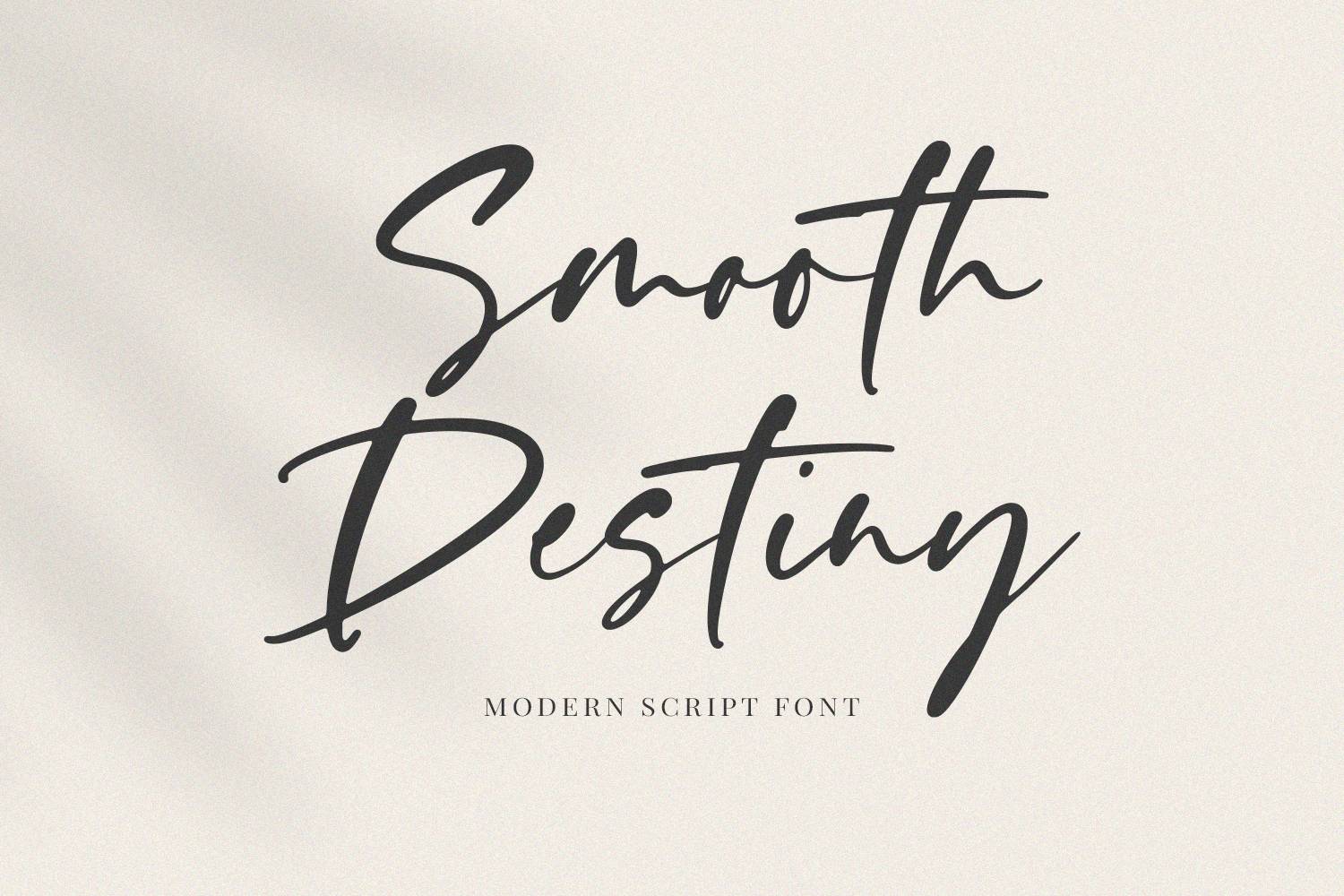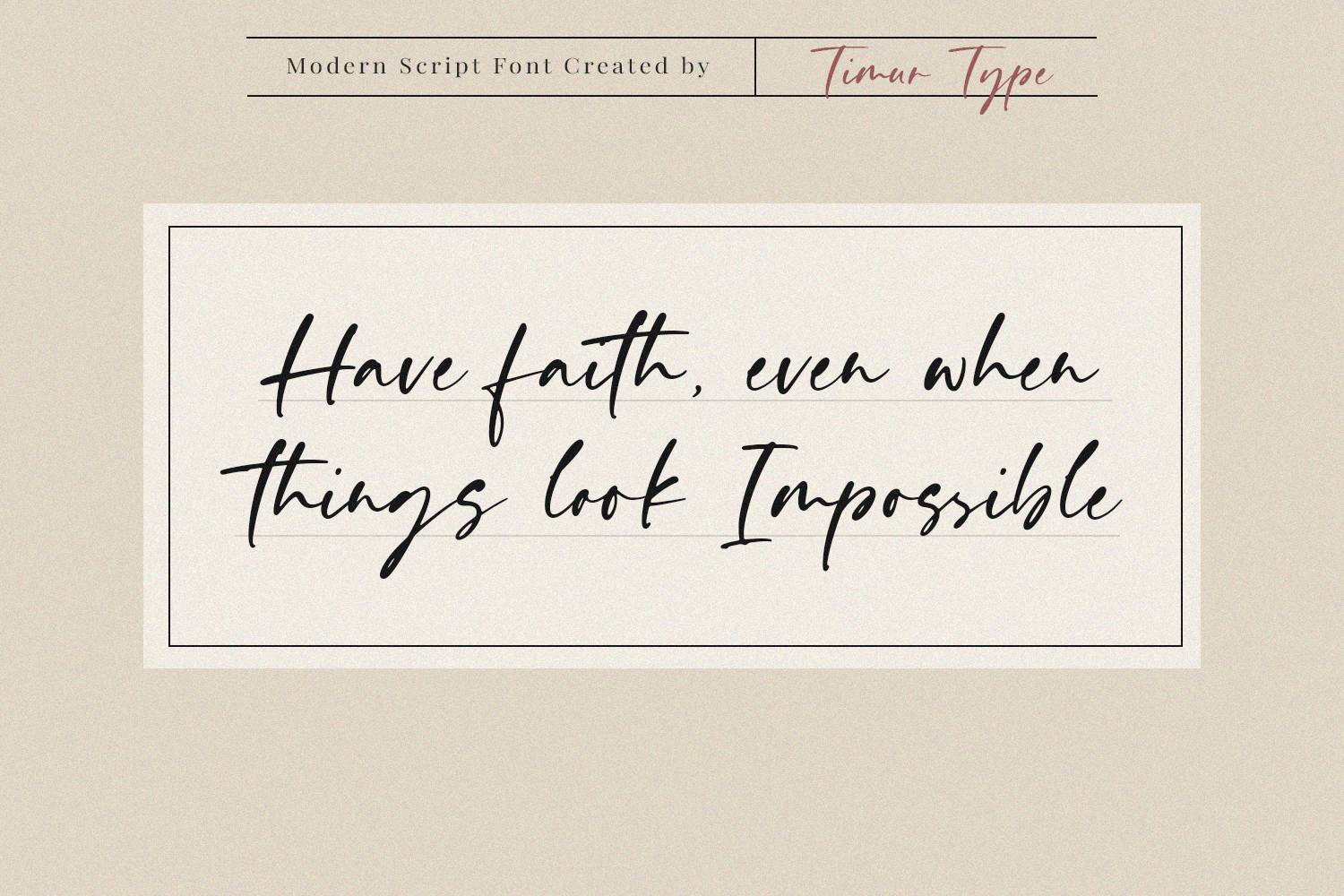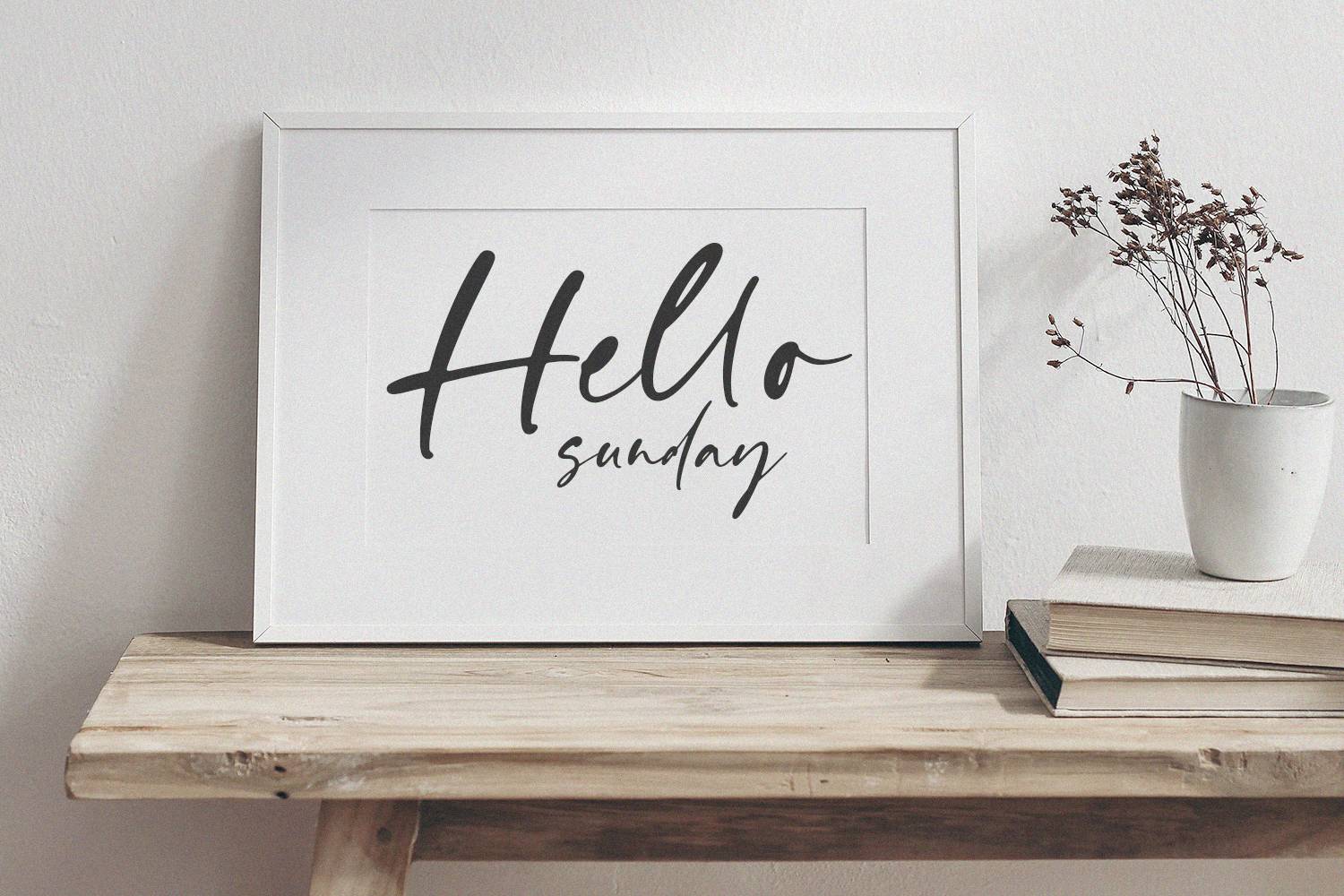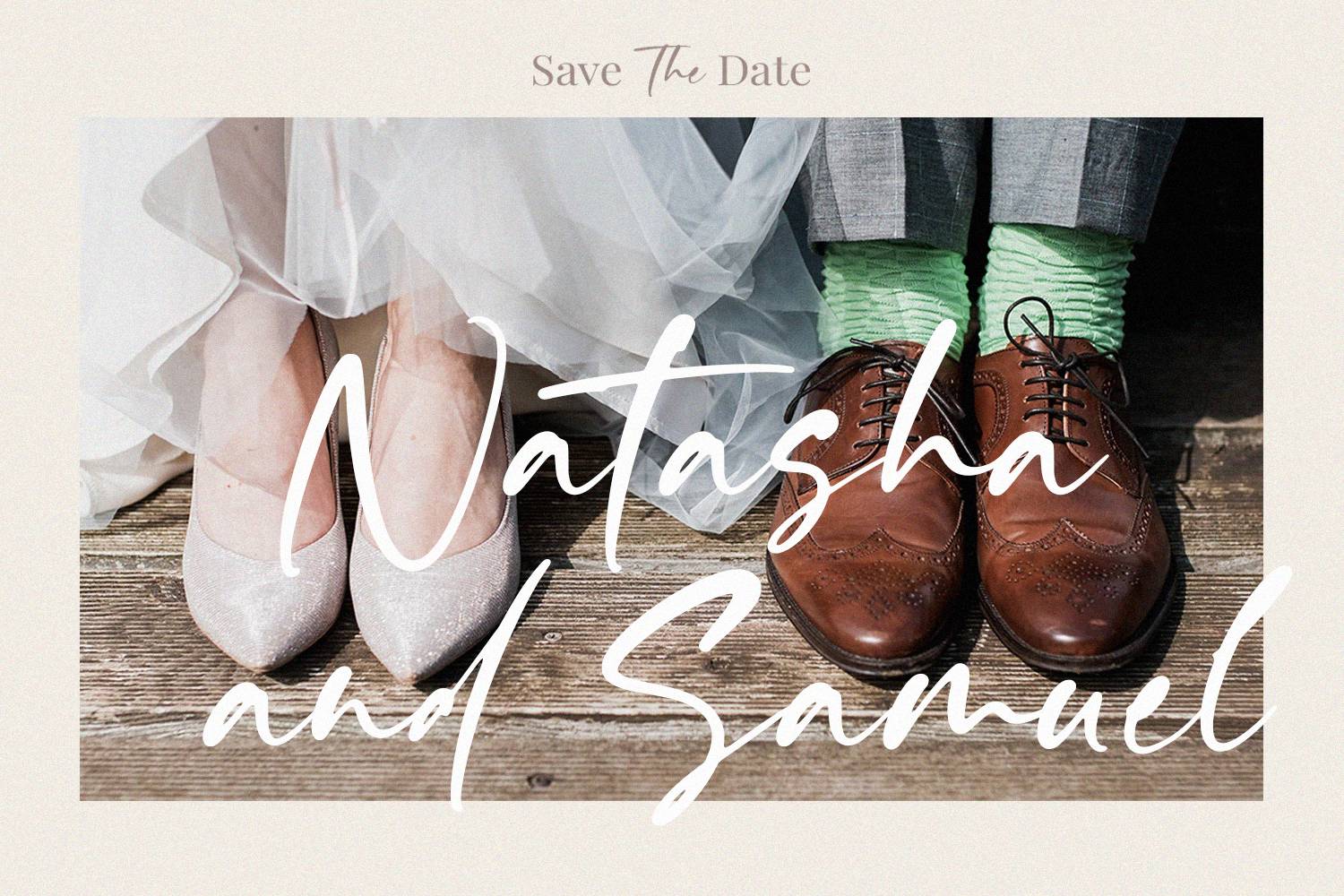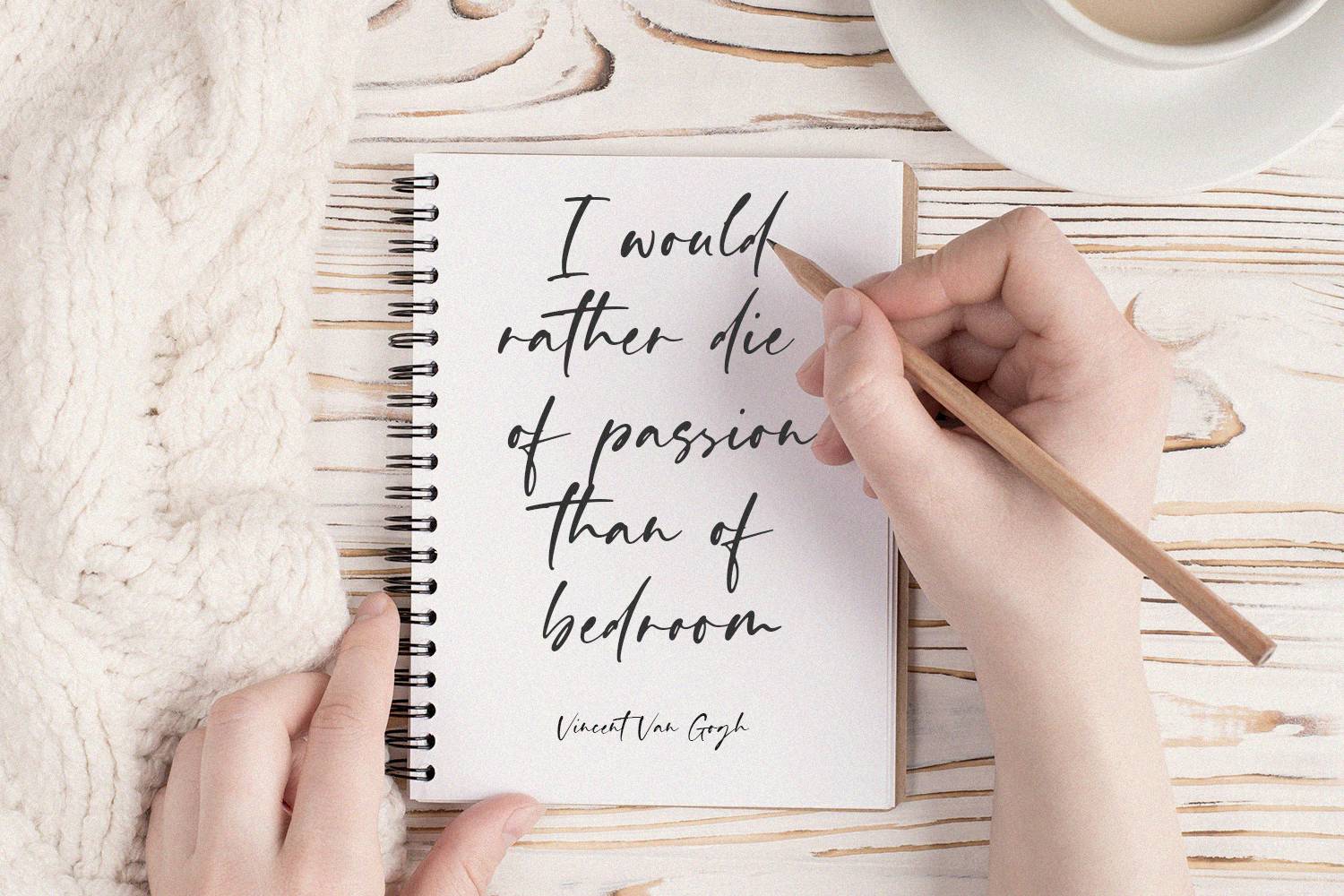
Smooth Destiny is a stylish, handwritten script font that features elegant, flowing strokes with a natural, casual feel. Its slender weight, moderate contrast, and slightly irregular letterforms give it a personal and approachable character, perfect for adding a creative and sophisticated touch. This font works beautifully in branding, invitations, and editorial designs where a blend of elegance and warmth is desired.
Smooth Destiny Font
About Smooth Destiny Font